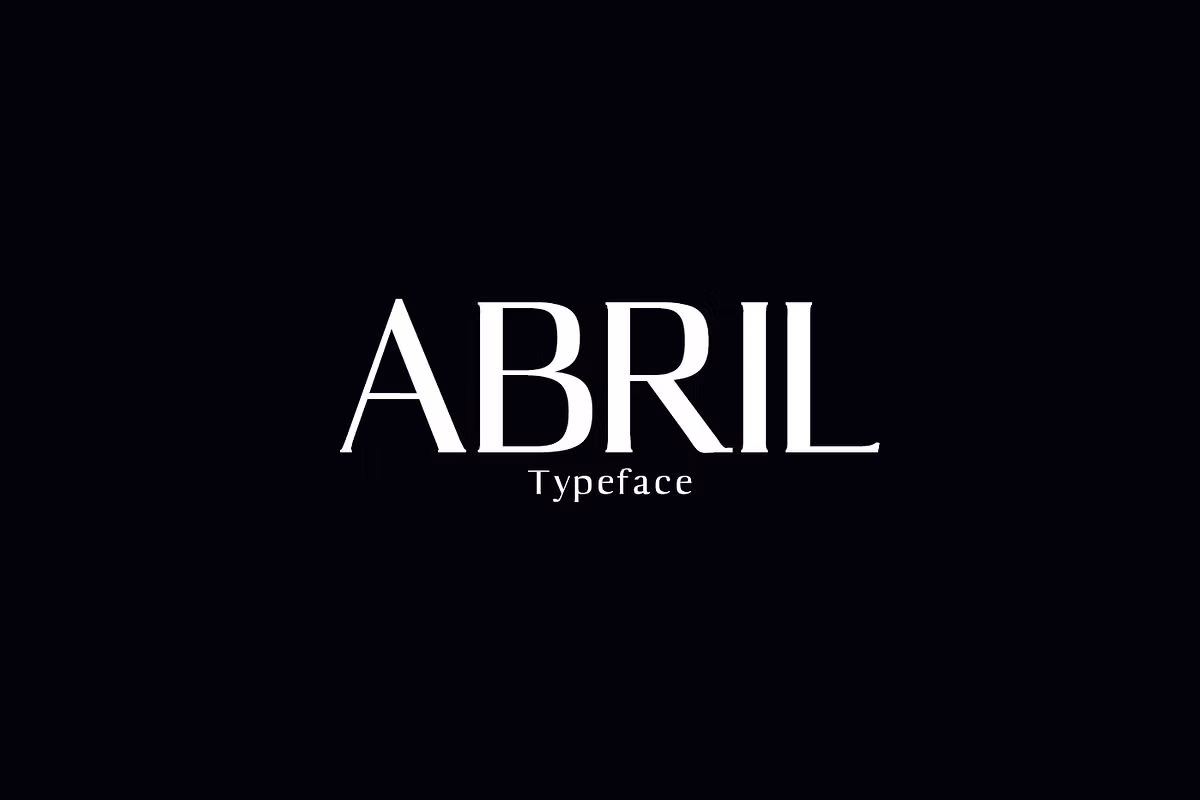
Abril Serif Font Family Pack Free Download is a sophisticated and versatile font family that brings a modern twist to classic serif design. With multiple weights and styles, this family is perfect for creating high-end branding, editorial layouts, websites, logos, and print materials.
The Abril Serif font family’s clean lines, generous spacing, and timeless elegance ensure readability and style in any project. Whether you're designing for a luxury brand, crafting an editorial spread, or building a professional website, Abril Serif Font Family Pack Free Download provides the ideal foundation for your typography.